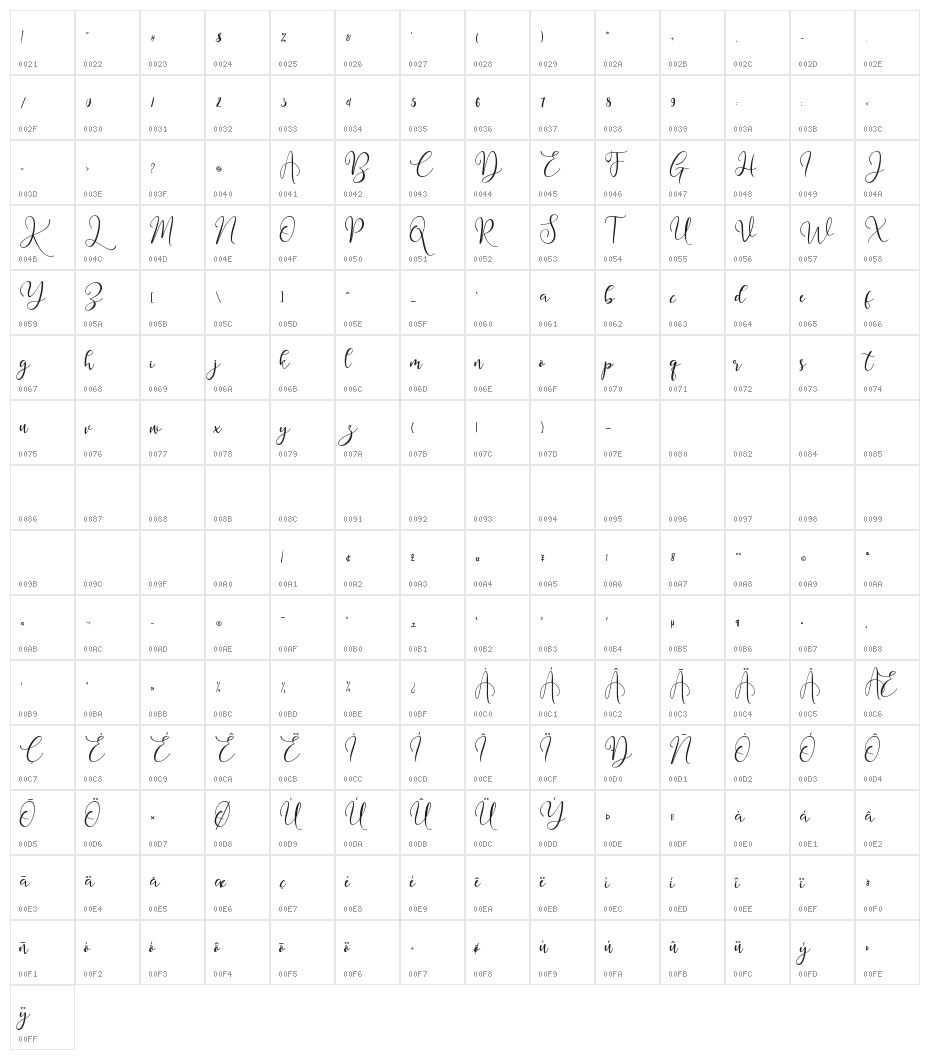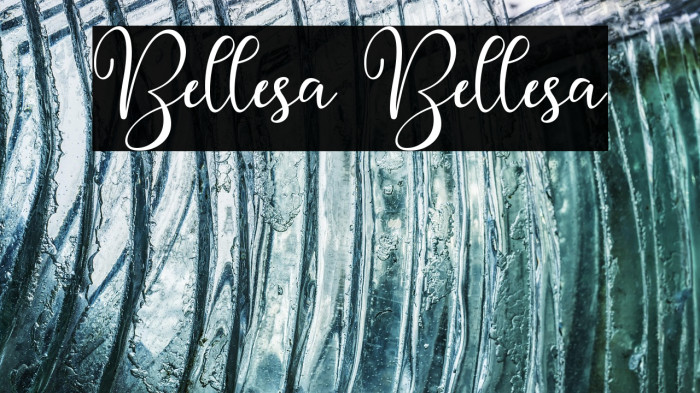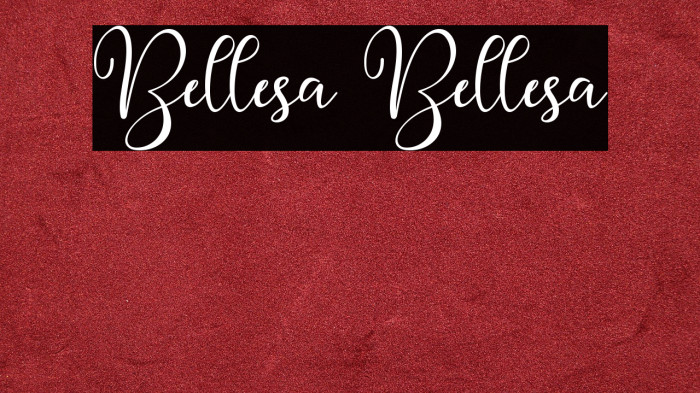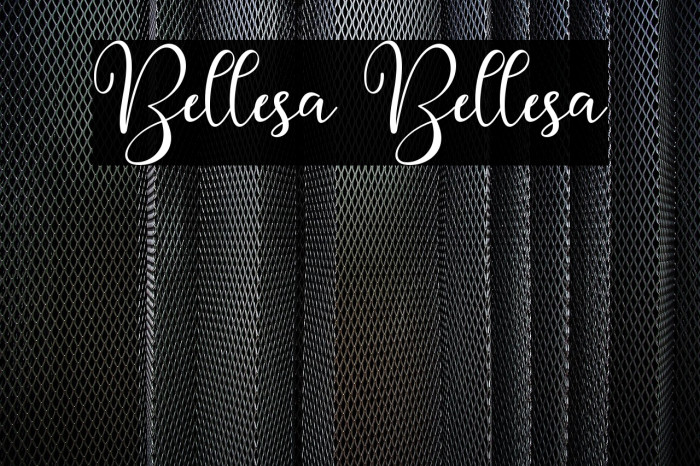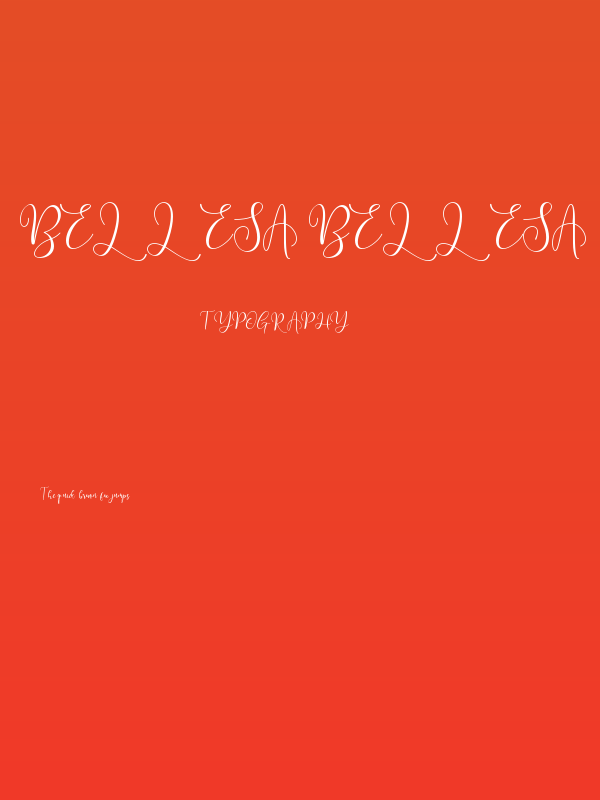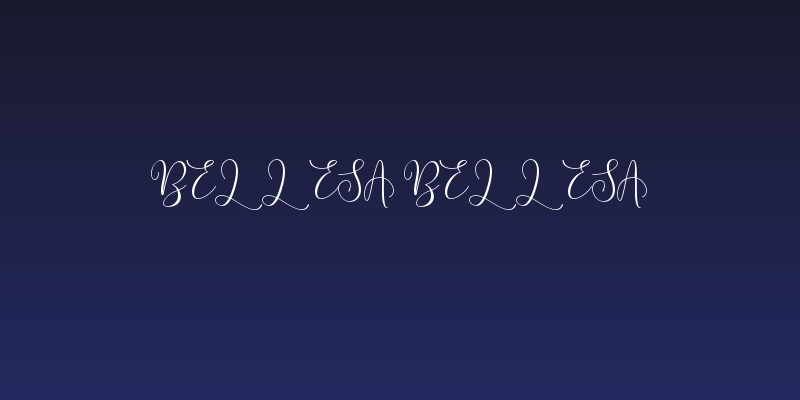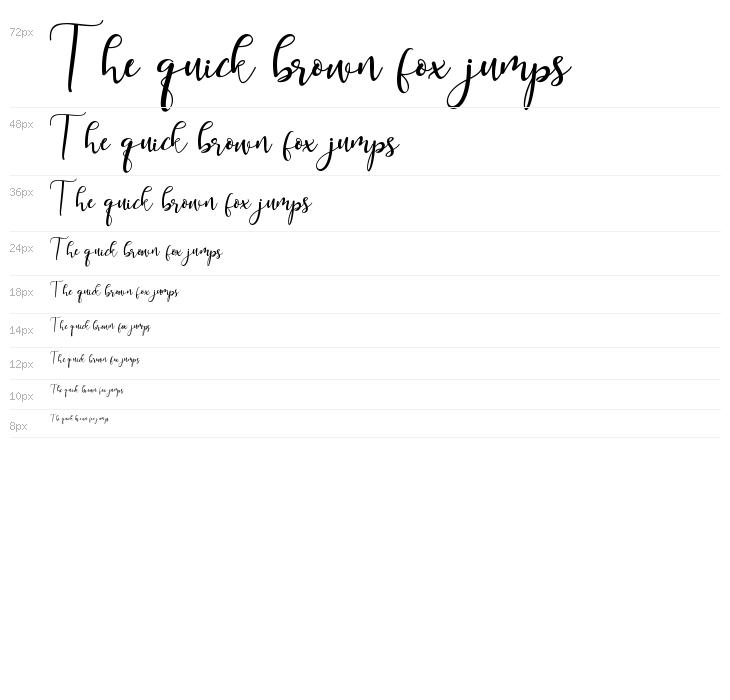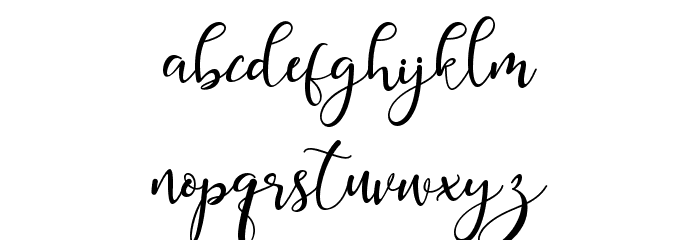
Bellesa Font
Bellesa Description
This elegant script font features a flowing, cursive style with a modern twist. The uppercase letters are characterized by their sweeping, graceful lines and loops, creating a sense of movement and sophistication. The lowercase letters maintain a cohesive flow, with some letters extending below the baseline, adding to the font's dynamic appearance. The numerals are consistent with the overall style, offering a balanced and harmonious look. Special characters are thoughtfully designed to complement the font's aesthetic, making it versatile for various applications. The font's overall appearance is both stylish and legible, making it suitable for a wide range of design projects.
| Use Case | Logos, Invitations, Branding |
| Proposed Projects | Ideal for wedding invitations, branding, logos, and elegant stationery. |